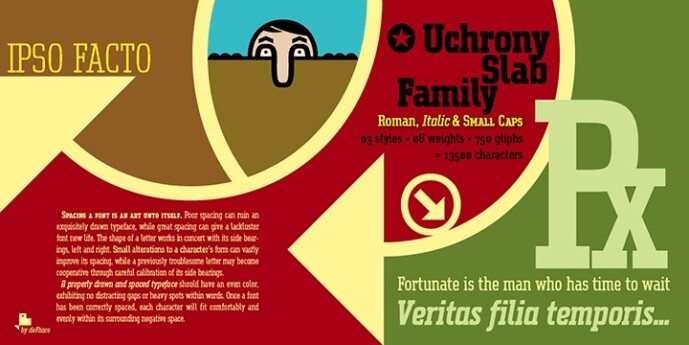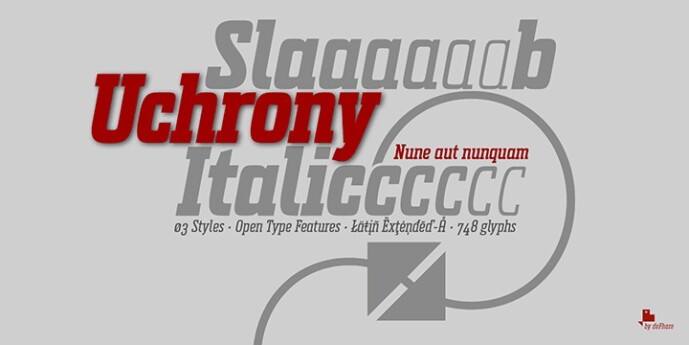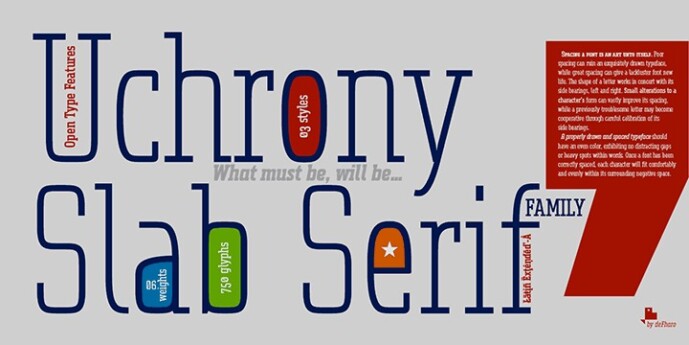
Uchrony Font Family
Designer: deFharo
Uchrony Font Family is a condensed proportion slab serif typeface. The font family is made up of 3 styles, Roman, Small Caps & Italics, with 6 weights each.
The lowercase letter “o” has guided the basic proportions and curves, in an exercise in minimalist construction, providing morphological coherence and maximum legibility, for this multi-purpose typeface family. The typography includes alternative letters, several sets of numbers, and advanced OpenType features.